Selecting the appropriate typeface for your logo is crucial, as it impacts how your audience perceives your brand. To achieve a polished and high-end style, you don't need to go overboard with anything extravagant; A clean and well-designed typeface will significantly enhance the perception of your logo by making it appear more sophisticated and add a touch of luxury to your brand.
We have selected 7 fonts that can help make your logo more elegant and classy. Whether you are designing for a beauty brand, a fashion label, a cozy café, or a creative studio, these elegant fonts are ideal as they are simple yet do not appear too fancy or showing off. Whether you are creating a logo or refreshing one, these fonts are a great go-to.
1. Noto Serif Display
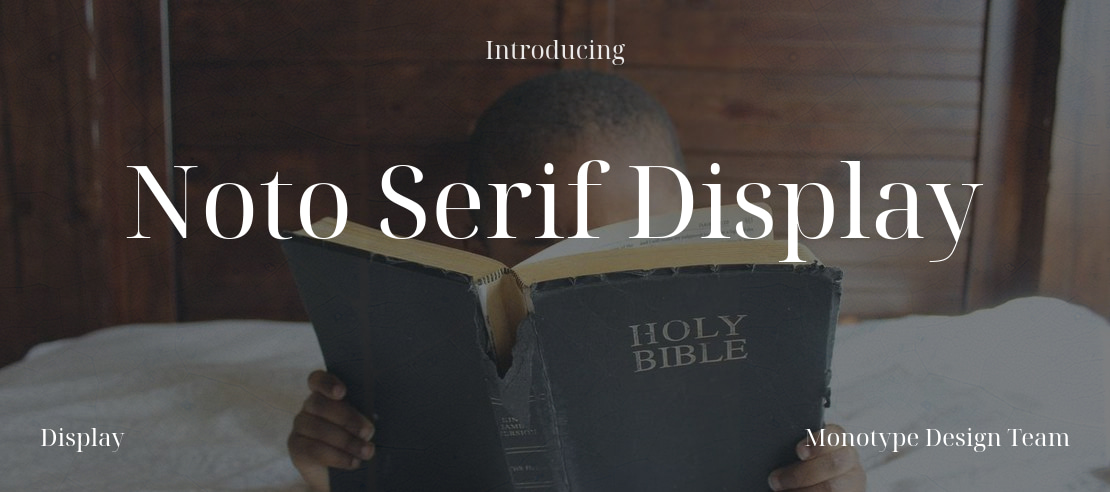
Noto Serif Display adds an instantly classic touch to your logo with its serif font which makes it look polished and sophisticated. Noto Serif Display strikes an elegant and distinction blend with their gentle curves, balanced spacing, and subtle contrast between the thick and thin strokes of the font. These design elements create a delicate, ageless quality and steers clear of feeling excessively retro or rigid.
2. Sulphur Point
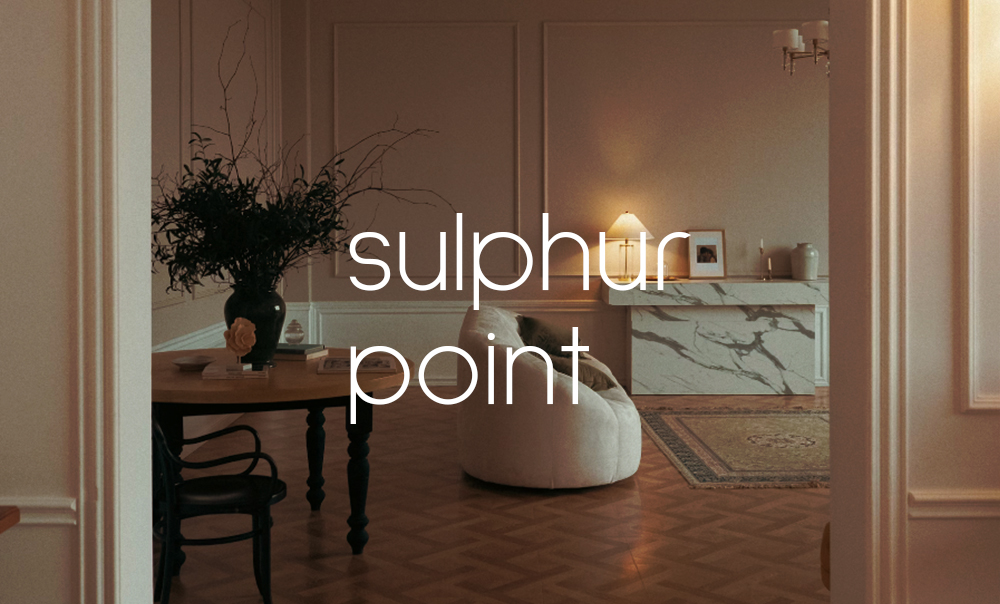
Sulphur Point is a geometric sans-serif typeface that's modern. It is meticulously crafted and has a quiet confidence that makes it feel sophisticated. The refined look of Sulphur Point comes from its letterforms, which are accurate, well-balanced, and precisely crafted. They all are simple, but constructed to be the optimal blend of letter space and weight. This typeface does not feel cold or overly sterile. It feels fresh and modern, akin to a sleek minimalist interior that is warm and inviting.
Modern brands focused on understated luxury will find this font ideal, from skincare logos, and tech accessories to design studios or modern cafés. This font will not draw attention, but it will always ensure that your logo appears neat, sharp, and subtle high-end.
3. Cormorant Unicase
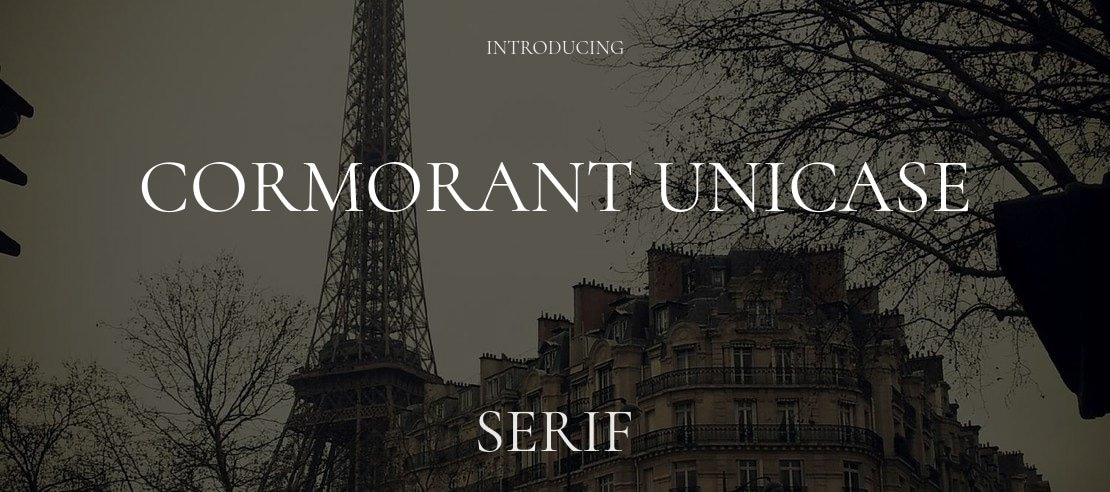
Cormorant Unicase has an understated elegance as it creatively captures the spirit of classic serif fonts, such as those found in luxury packaging or old magazines. Its sophisticated artistic impression stems from the delicate serifs, the contrasting thick and thin strokes, and the graceful curves.
What distinguishes it the most is the unicase style, where all letters share the same generic height and shape. The font maintains fanciness and style while also achieving a polished uniform rhythm. It simultaneously evokes nuanced old-world charm and modern design, feeling fresh yet refined. The font creates the impression of a thoughtful premium brand that borders on being editorial, as though the brand name is a high-end boutique or sophisticated product line on the cover of a sleek magazine.
4. PT Serif
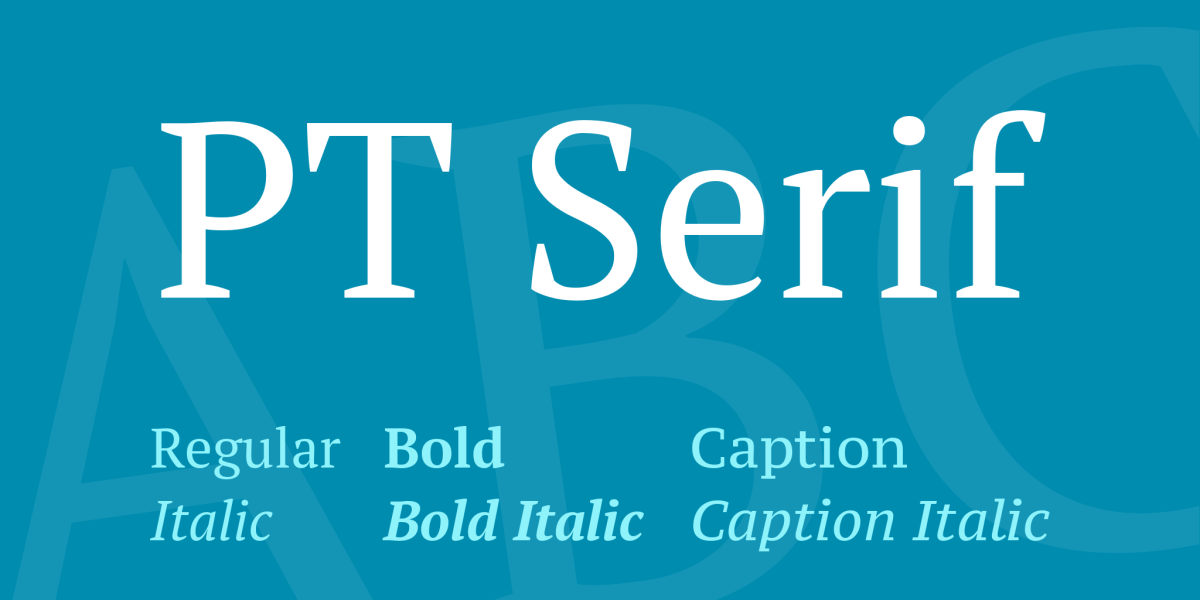
With PT Serif your design takes on an understated elegance. It’s not over the top, or cutesy – it’s simply classic and timeless with an air of trustworthiness. Its sophisticated look comes from its traditional serif typeface with feet embellishments on the letters. Moreover, it has the perfect balance of thick and thin strokes. This brings movement to the lettering and adds some elegance without being excessive.
Even at small sizes, it maintains good readability, which contributes to professionalism and poise. You can spot PT Serif in editorials, books and luxury logos. These are scenarios where sophisticated design is essential.
5. Italiana
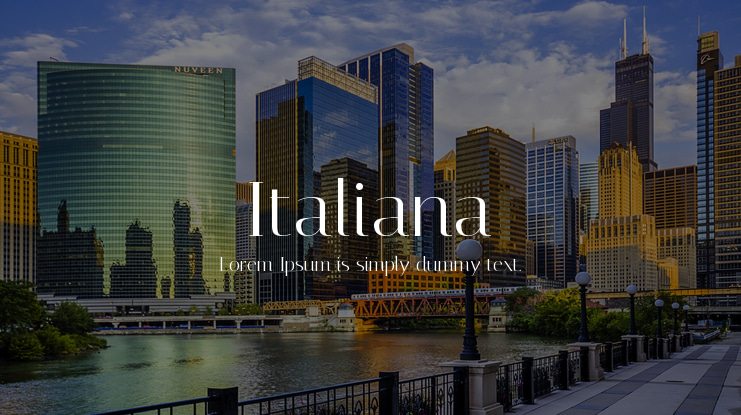
Italiana looks graceful in that effortless way, like someone who is stylish without any effort. It brings luxury and class to each logo due to its roots in fashion magazines. What makes it unique is how striking the contrast is. The spacing between letters snatches the eye and with its courtesy flowing design, It gives off a light upper class feel. Letterforms give off the picture of a high class sharp and slender body suit.
Italiana font is not just for magazines, it is timeless and modern. Whether it’s adding the finishing touch to a beauty brand or giving a fresh look to a fashion logo, It makes everything premium value.
6. Homenaje
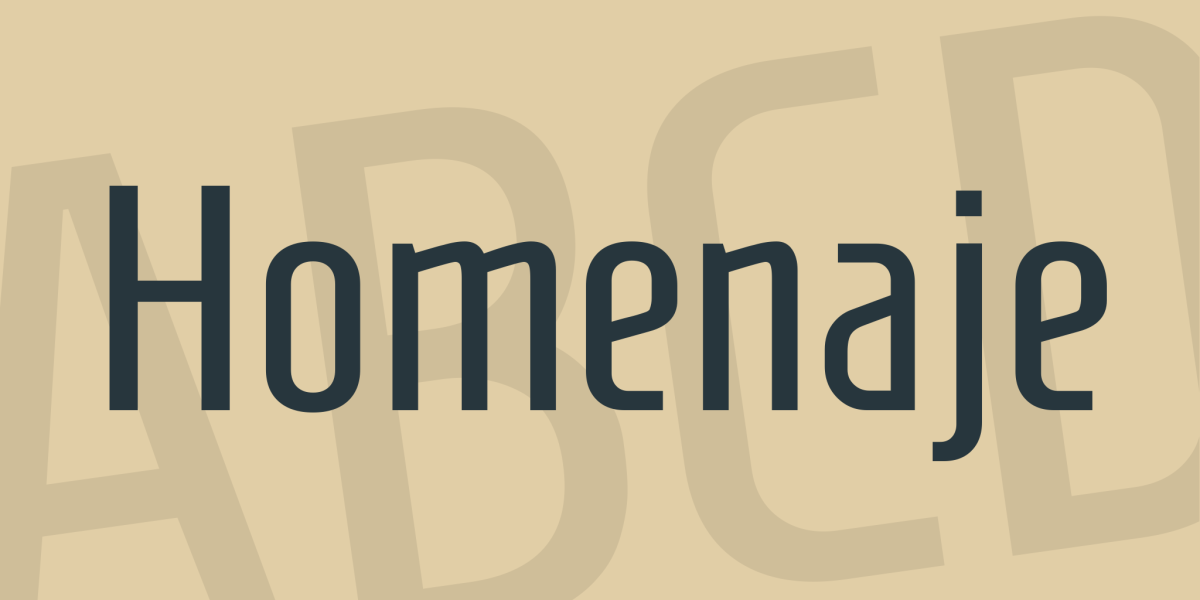
While Homenaje may not be considered refined in the simpler sense, its clean lines, gentle curves and slim structure radiate a handle of modern ‘minimalist’ elegance that captures restraint, exactness, and a gentle touch.
Homenaje has a polished and sophisticated feel due to its clean edges and slim, compact design. While the letterforms are bold and straightforward, they still deliver an appeal, particularly the character “a,” which displays subtle personality. That small detail adds charm without sacrificing clarity and legibility.
Wrap Up
Picking the right font can dramatically affect the perception of your brand. As you have seen, elegant logo fonts do not have to be complicated or excessive. The typefaces we shared here are all elegant in a subtle manner, ideal for providing your logo with an upscale, sophisticated feel without excess effort. If you are launching a brand or rebranding an existing one, these typefaces will help you convey the appropriate message that the brand is sophisticated, reliable and more polished than others. Give one a try and you could be amazed at the difference that it brings.